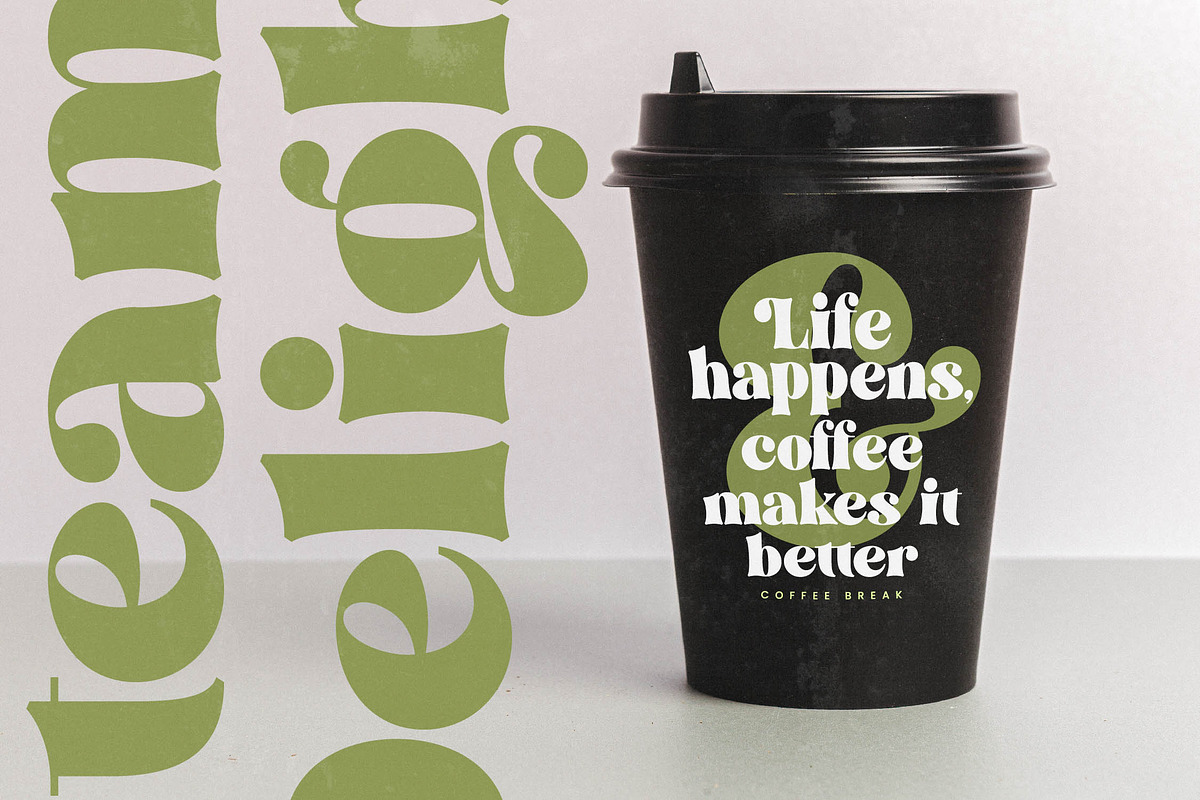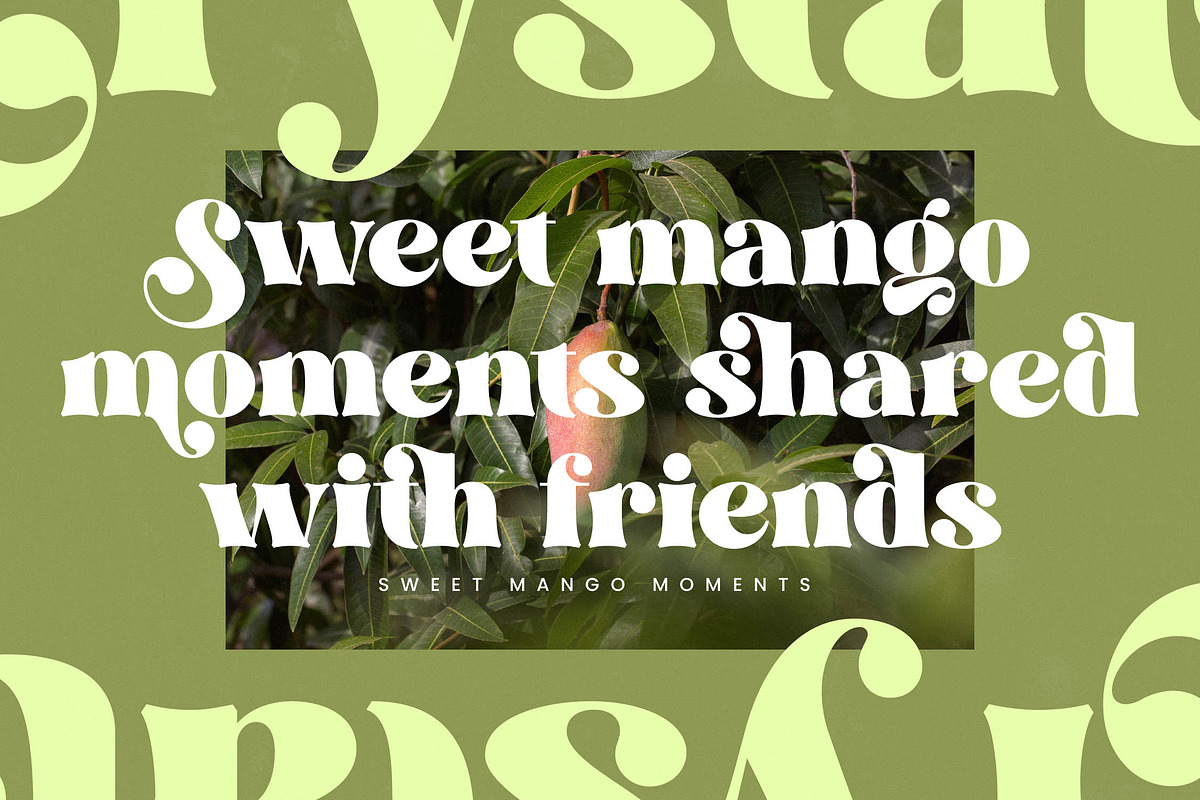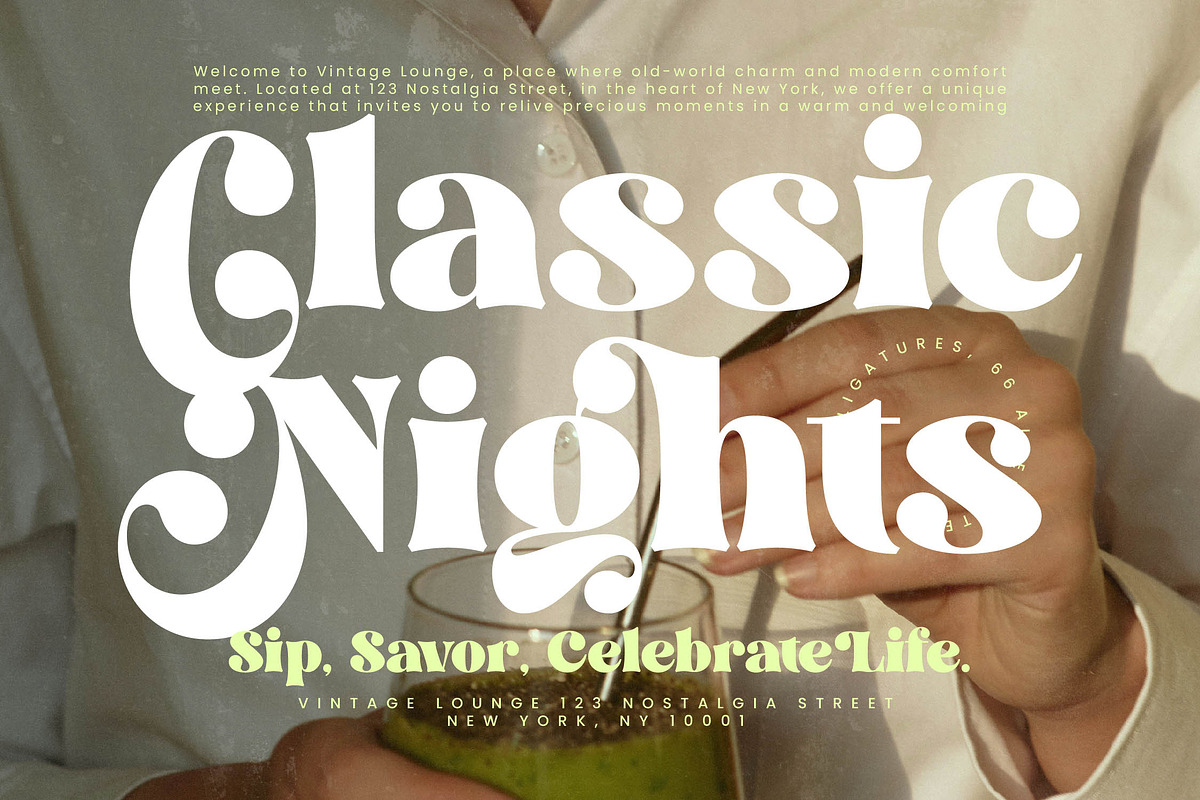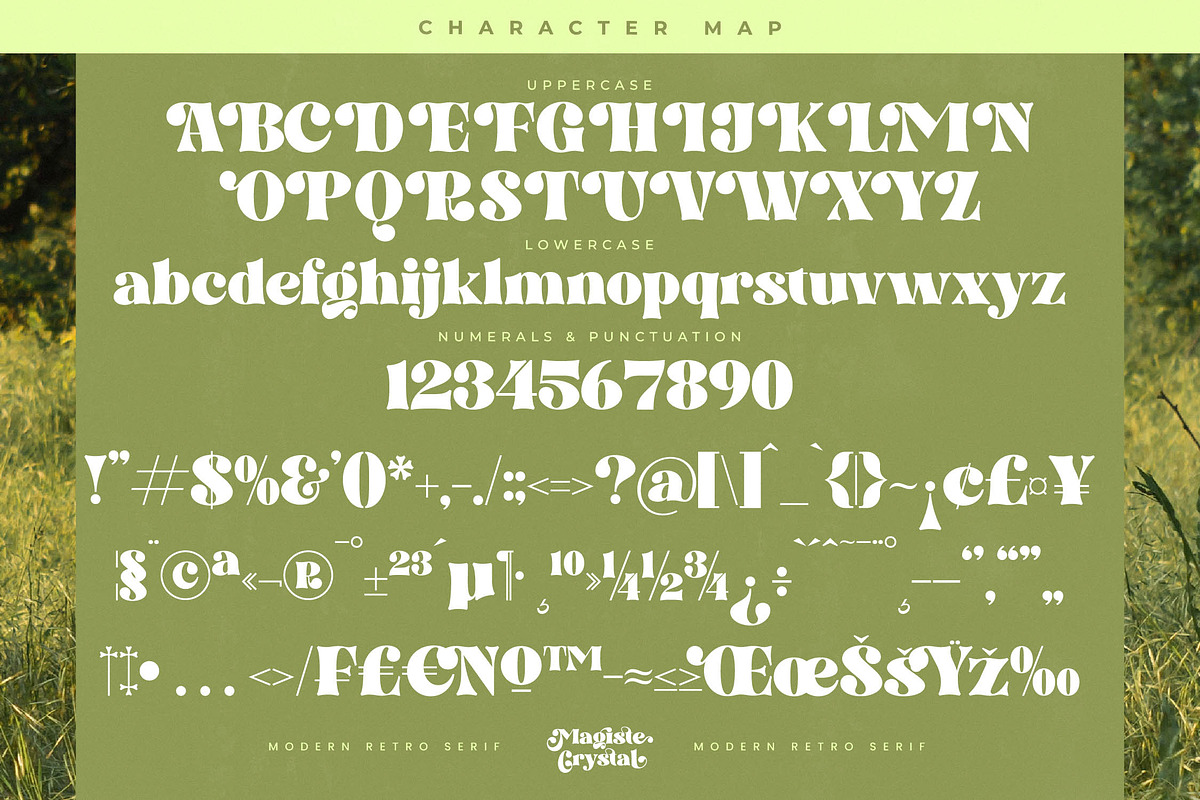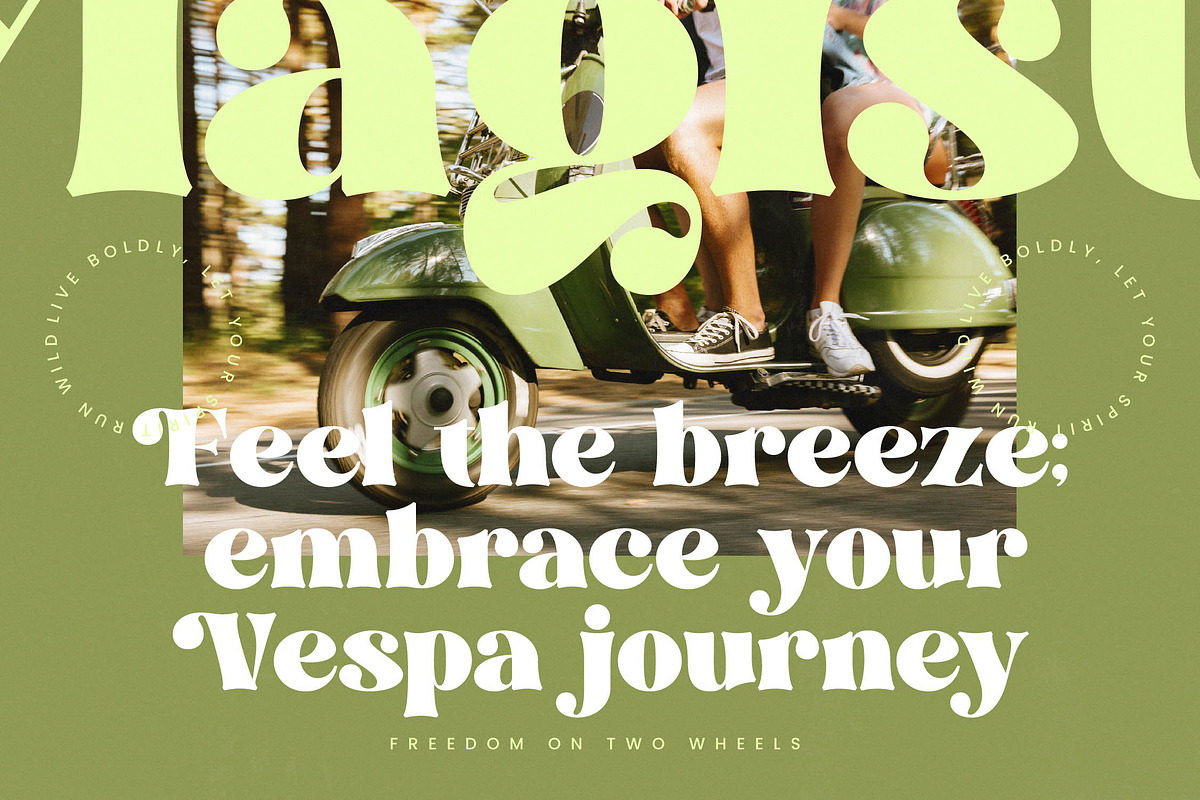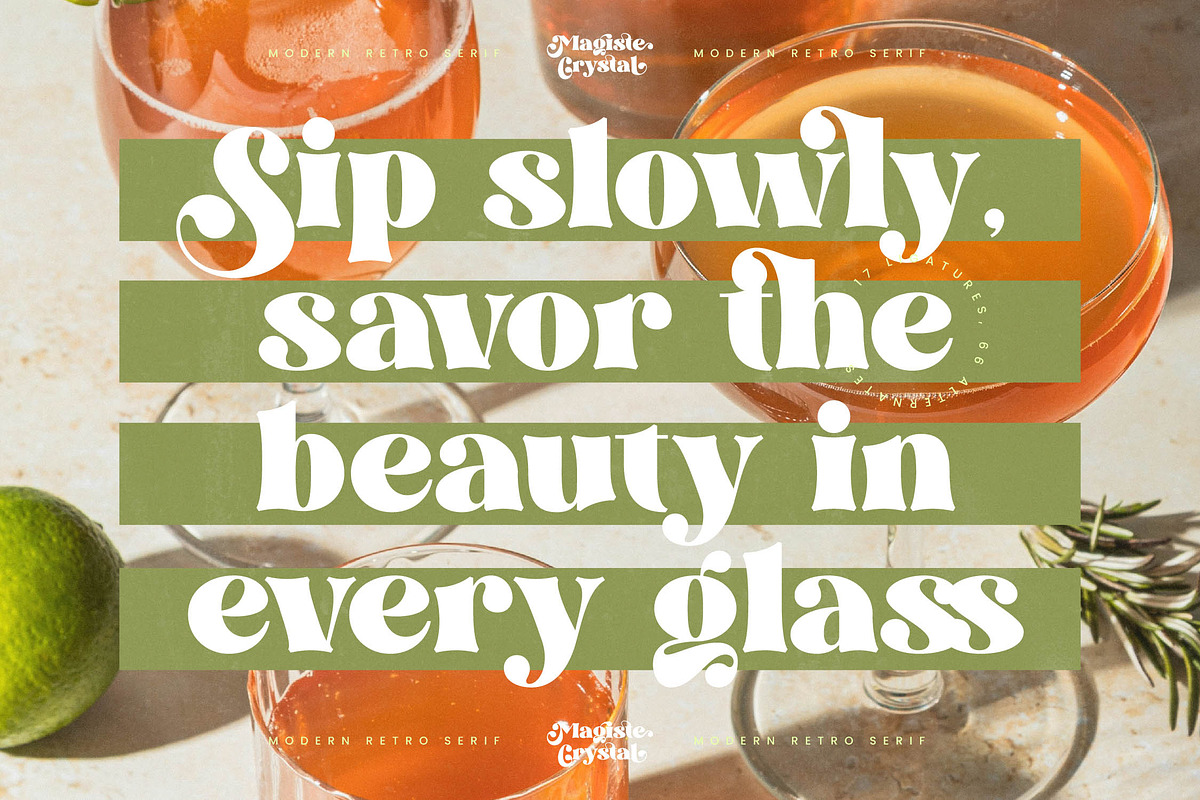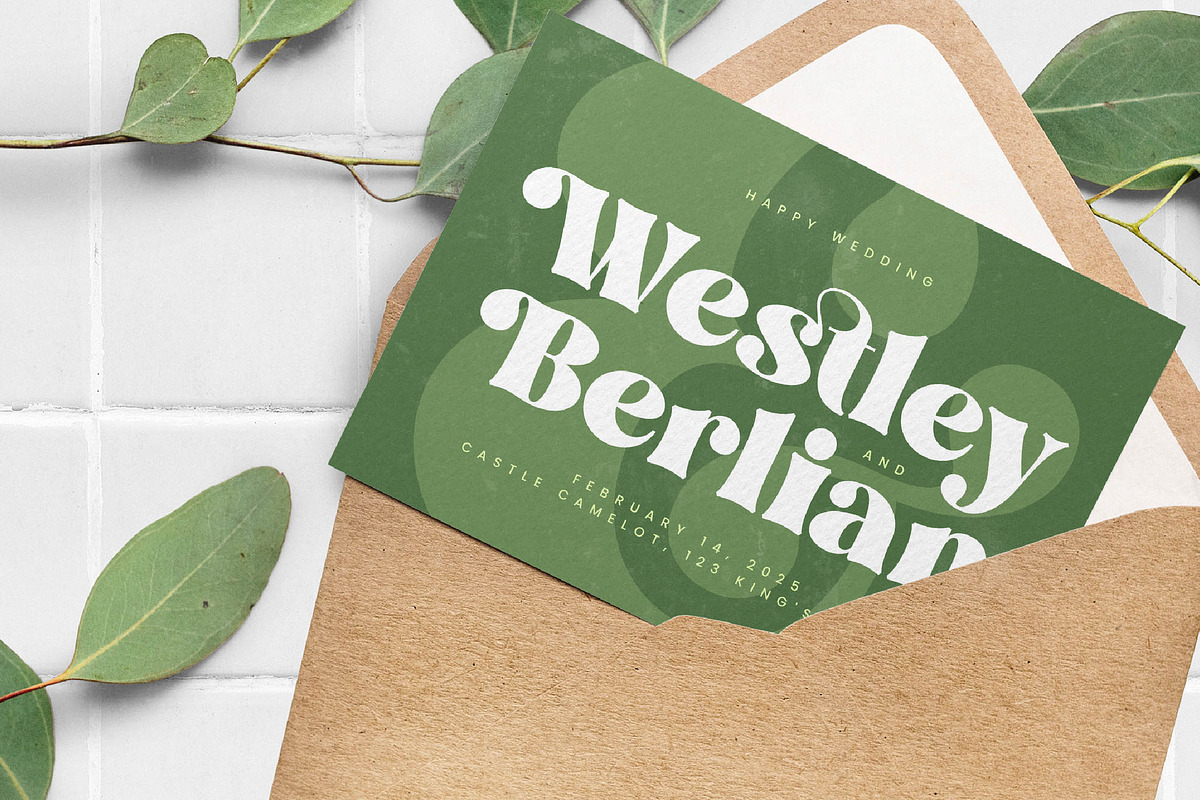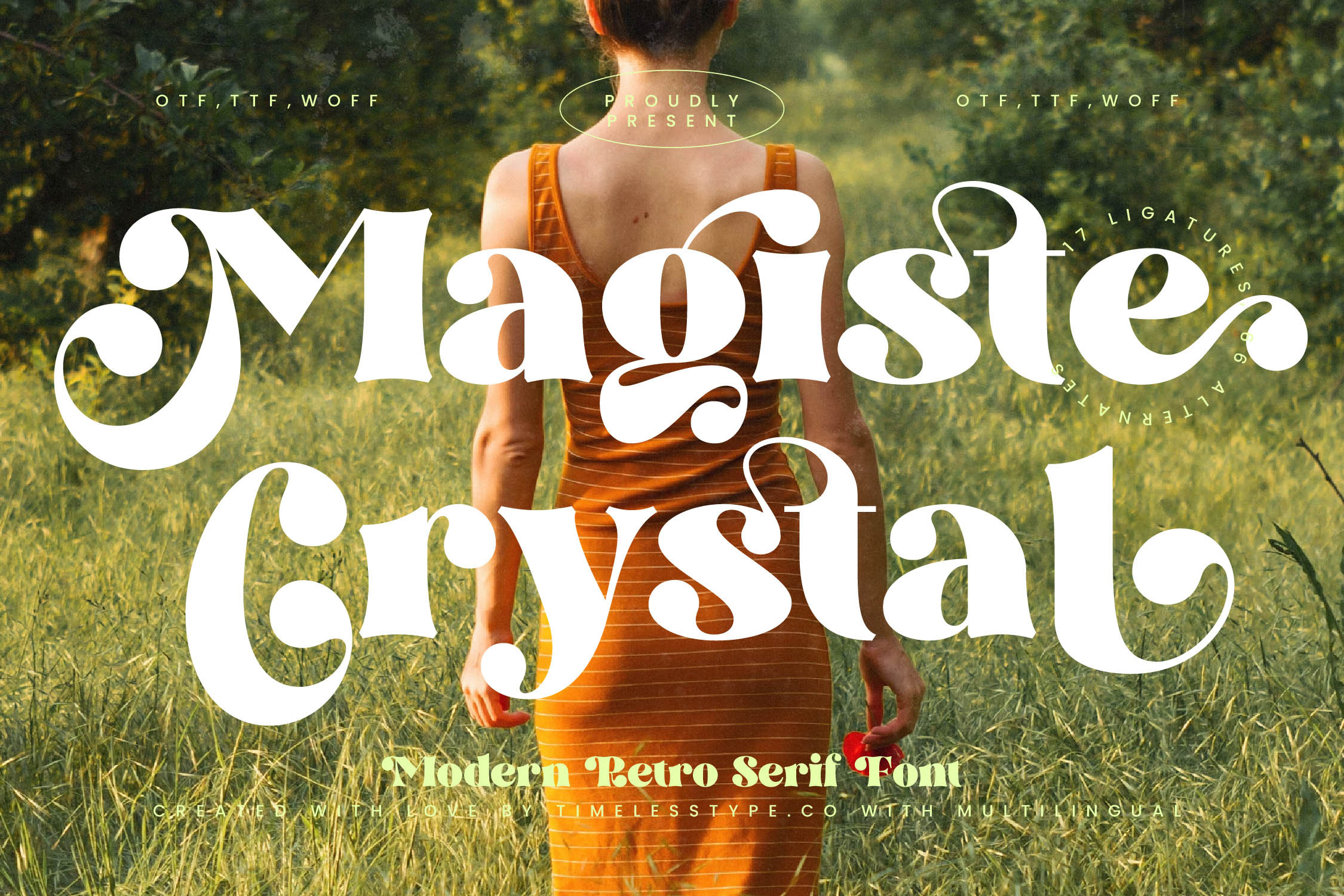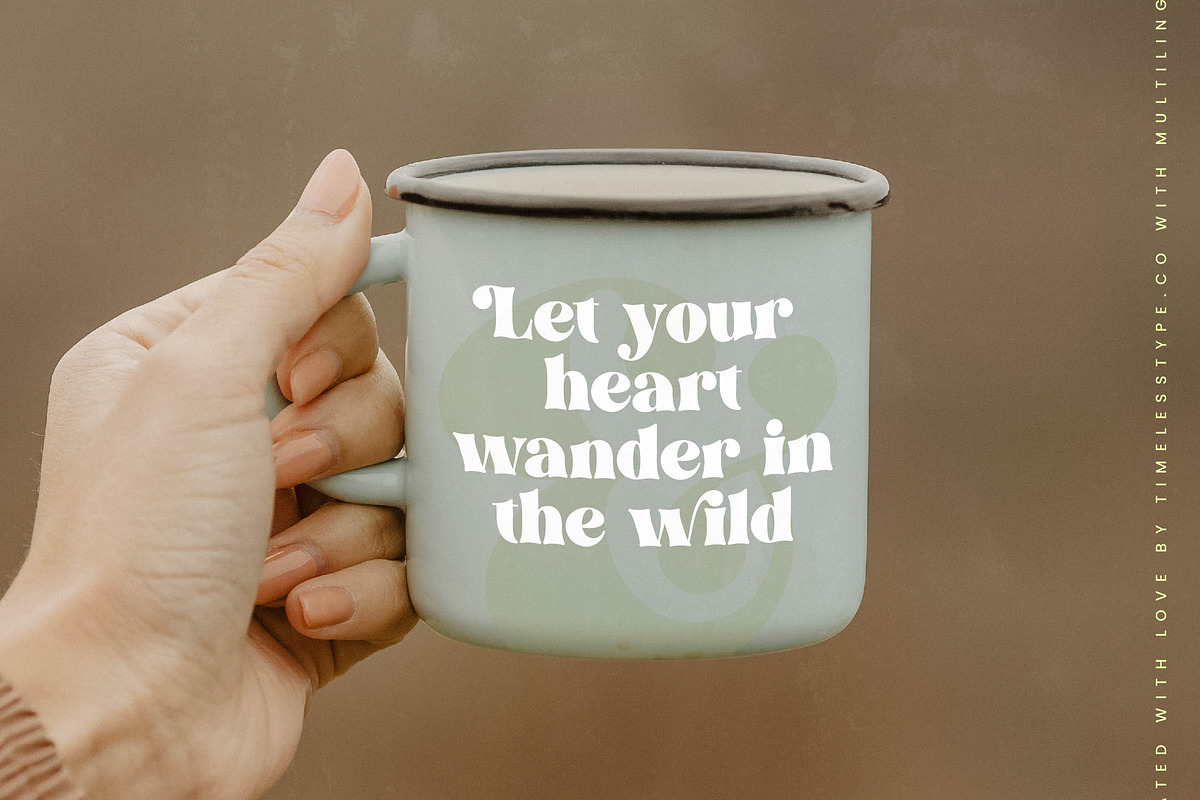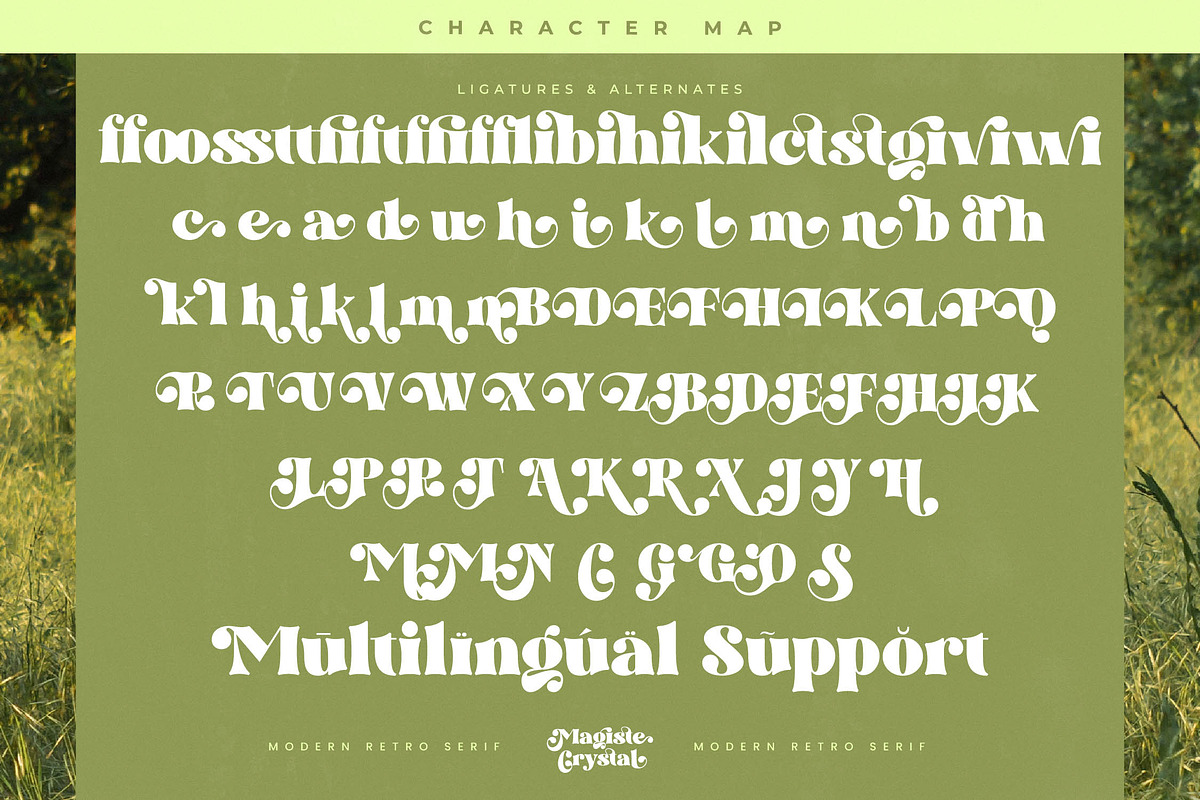
Magiste Crystal Retro Serif Font
Magiste Crystal is a masterclass in typographic elegance, blending fluid, organic curves with a sophisticated retro soul. It is the perfect choice for designers looking to infuse their projects with a sense of timeless charm and undeniable charisma.
Drawing inspiration from the golden era of 70s editorial design and sun-drenched pastoral landscapes, this typeface captures the essence of a vintage summer. Its flowing lines and dramatic weight shifts evoke a nostalgic atmosphere while remaining firmly rooted in contemporary aesthetics.
This modern serif display choice commands attention through its luxury typography and high-contrast serif architecture. Designed for maximum branding impact, it functions as a high-end editorial font that transforms simple text into a curated visual experience.
Perfectly aligned with the current modern serif trend, this typeface meets the demand for editorial display fonts that feel more personal and expressive. It champions character-driven typography by offering unique, curvaceous letterforms that stand out in a sea of sterile minimalist designs.
Whether you are crafting a high-end logo design or building a cohesive identity for branding, this font excels in editorial layouts and luxury packaging. It is an ideal companion for romantic wedding stationery and sophisticated fashion lookbooks that require a touch of artisanal flair.
The font package is fully loaded with a generous set of ligatures and decorative alternates to unlock endless creative possibilities. With comprehensive multilingual support, including international characters and elegant swashes, it ensures your message reaches a global audience with style.
- Ligature 17 Alternate 66